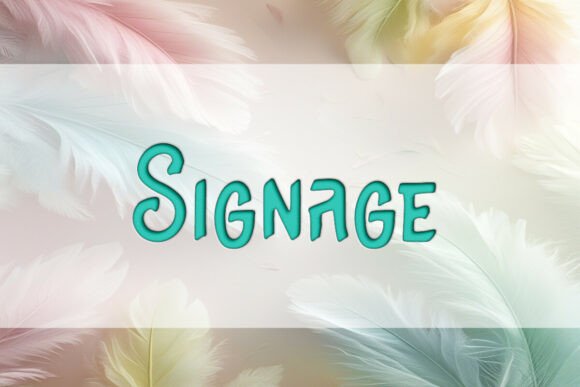
Introduction to Signage Font
Immerse yourself in the timeless appeal of Signage font, the perfect addition for an array of creative applications.
This stunning typeface effortlessly enhances the aesthetic of apparel like T-shirts, adding a captivating charm to stickers, and delivering a significant impact on branded content Ideal for both digital and print projects, Signage font is the preferred choice for magazine layouts, SVG file creations, and uniquely expressive greeting cards.